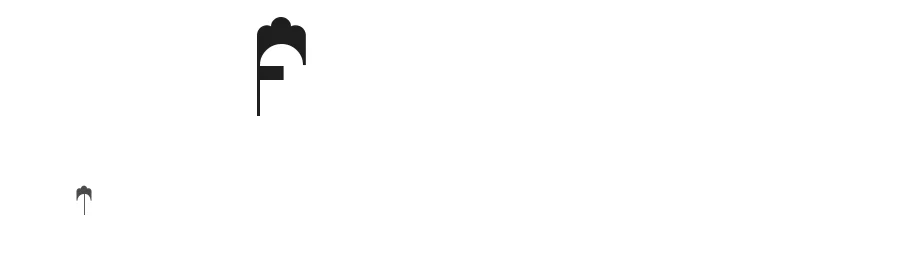
About Boss M Font
Boss M is a decorative font designed by Daniel Angermann. It includes 34 glyphs, a regular weight, and OTF (CFF) format. Boss M is free to download; check the license details on this page before commercial use. Decorative fonts like Boss M work best for logos, posters, packaging, and standout headlines.
Boss M Font is a decorative font that shines as a display or heading face. Pair it with a clean sans-serif or serif font for body text β the contrast creates a clear hierarchy while the two styles stay balanced and easy to read.